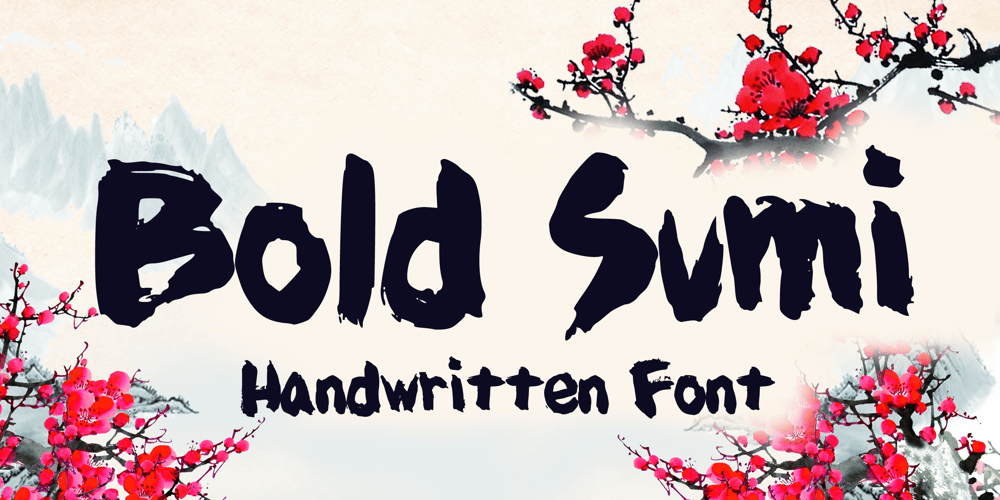
Bold Sumi Font Family was designed by Gabriel Valentinus and published by Mvmet. Bold Sumi contains 1 styles and family package options. Bold Sumi is a beautiful and expressive asian sumi brush handmade font. You can use it for anything ranging from t-shirts, book designs, and greeting cards to stickers and posters, packaging designs, or anything that needs a casual touch, it will be your perfect font to pick. Fall in love with its incredibly versatile style, and use it to create lovely designs!